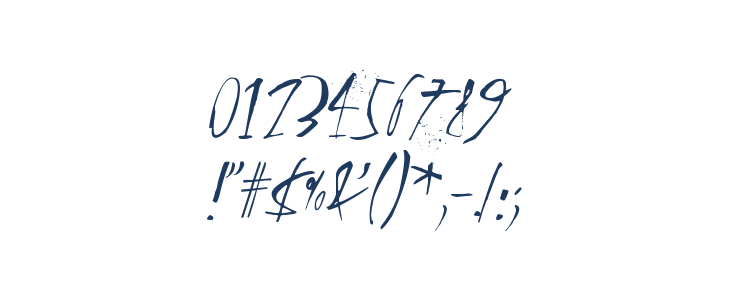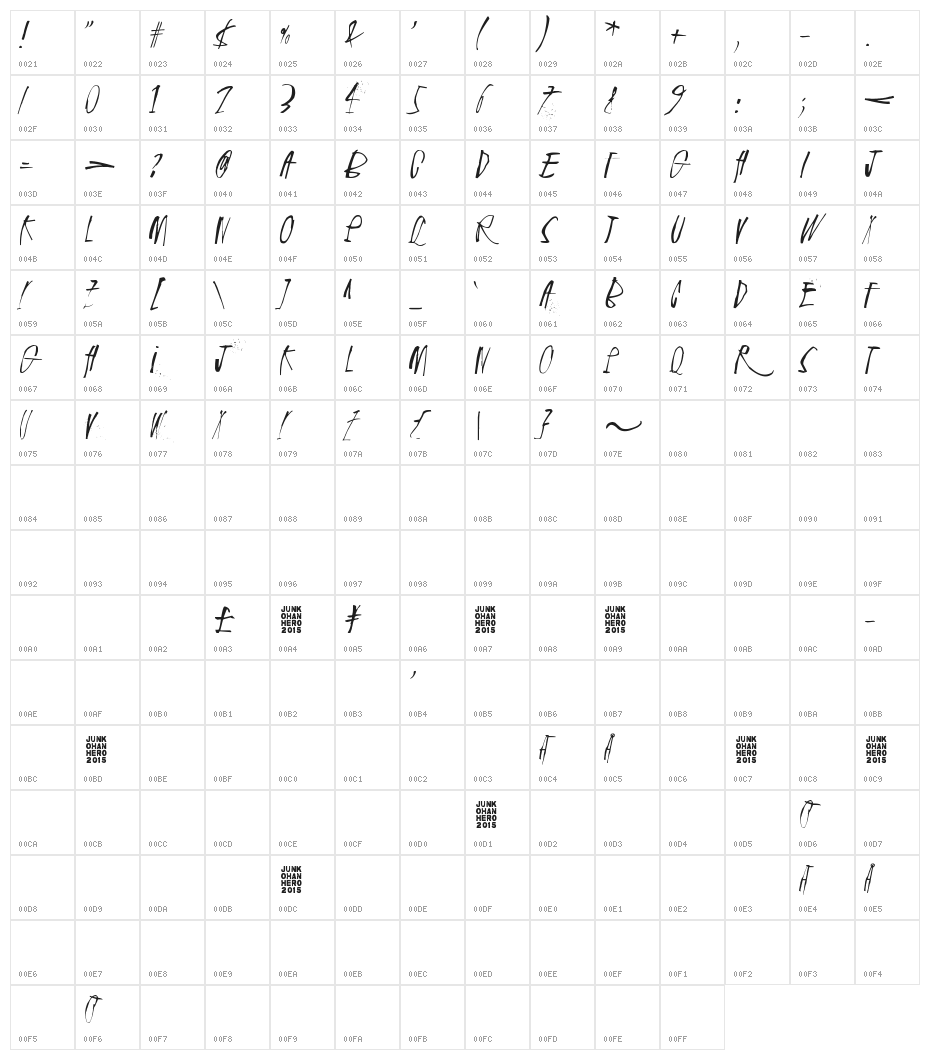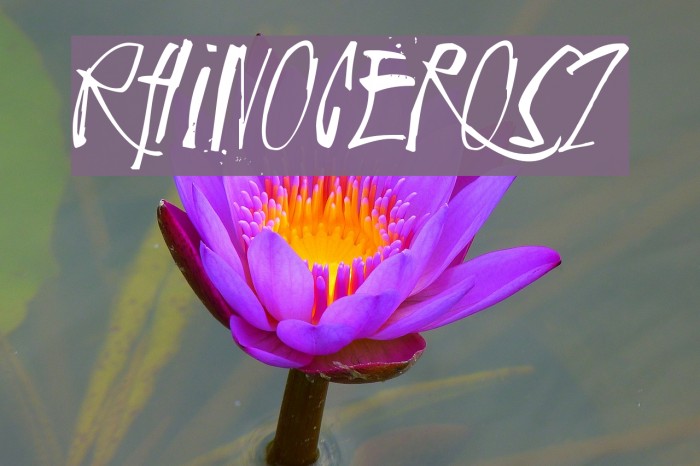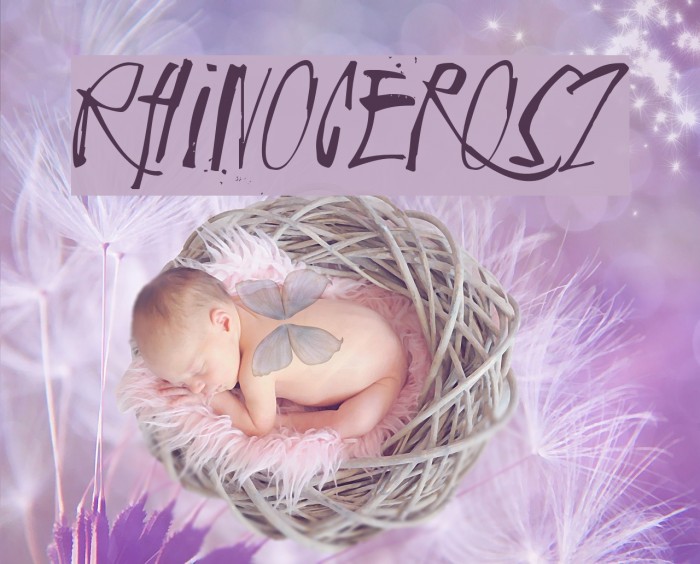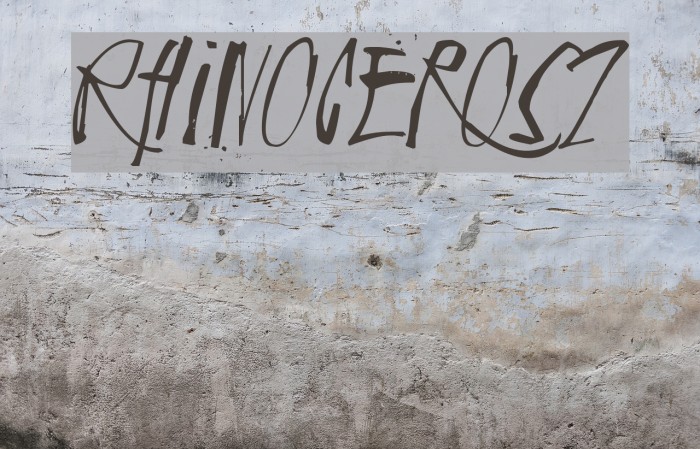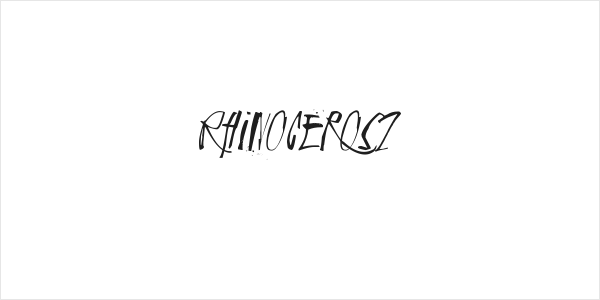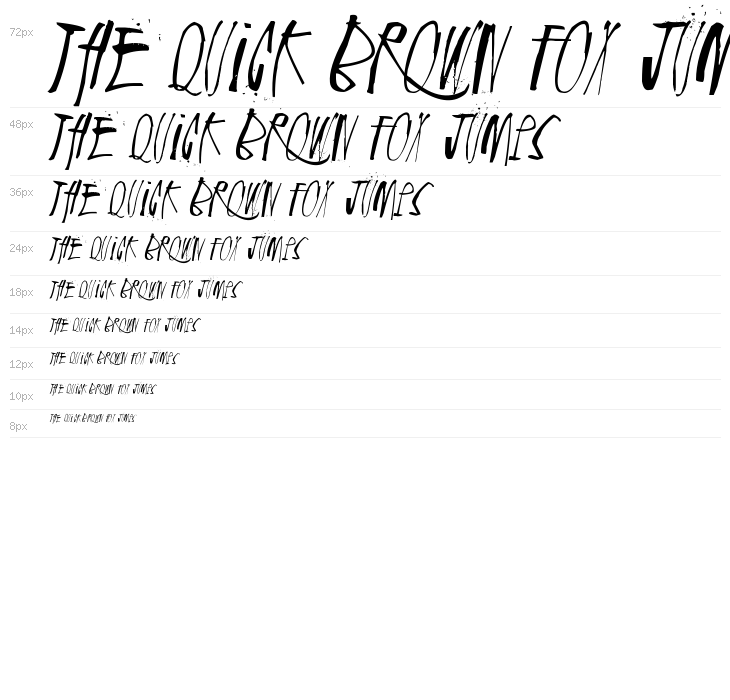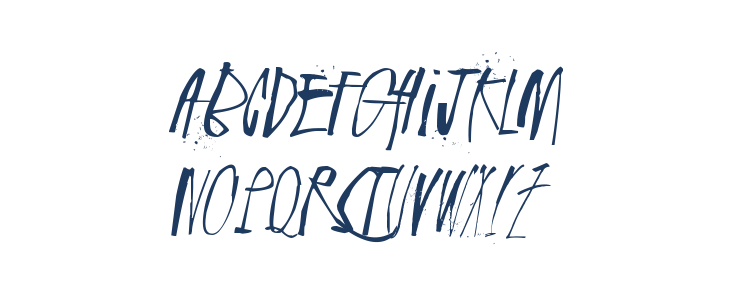
Rhinoceros2 Font
Rhinoceros2 Description
This font exhibits a dynamic and expressive style, characterized by its bold, brush-like strokes and irregular, hand-drawn appearance. The letters have a spontaneous and energetic feel, with varying line thicknesses that create a sense of movement and fluidity. The uppercase and lowercase letters maintain a consistent aesthetic, while the numerals and special characters complement the overall design. This font's unique and artistic nature makes it stand out, offering a creative and edgy look that is both modern and unconventional.